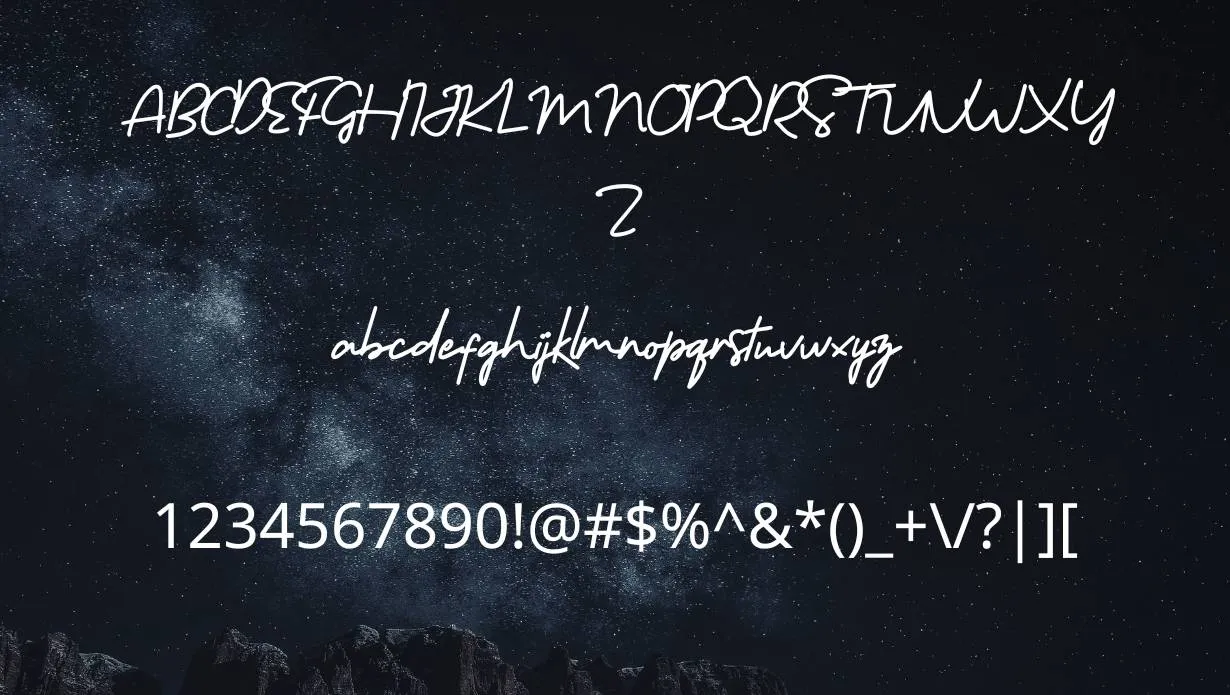
Morning Gold font is like a cheerful ray of sunshine, infusing your words with joy. Its playful vibe makes it ideal for festive invitations or any message that aims to spread happiness.
The font’s light and airy weight gives your words a delightful feel, and its playfully proportioned width adds a happy flow to your text. Morning Gold is the font that makes your words dance with a sense of happiness, perfect for any occasion that calls for a touch of brightness.